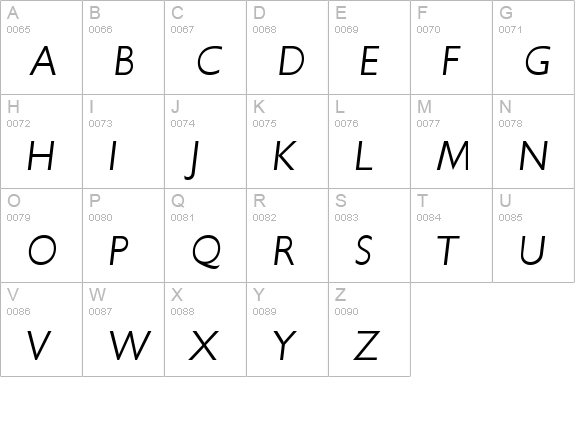
Chantilly-LightIta Font Details
Chantilly-LightIta is a sleek and elegant font that exudes sophistication and charm. With its delicate curves and slender lines, this typeface is perfect for adding a touch of refinement to any design project. Its light weight gives it a graceful and airy appearance, making it ideal for use in various applications such as branding, invitations, and editorial design. What makes Chantilly-LightIta even more appealing is that it is available for free download at FontsMarket.com. This means that you can easily access this beautiful font to elevate your creations without any cost. Don't miss out on the opportunity to enhance your designs with the timeless elegance of Chantilly-LightIta.